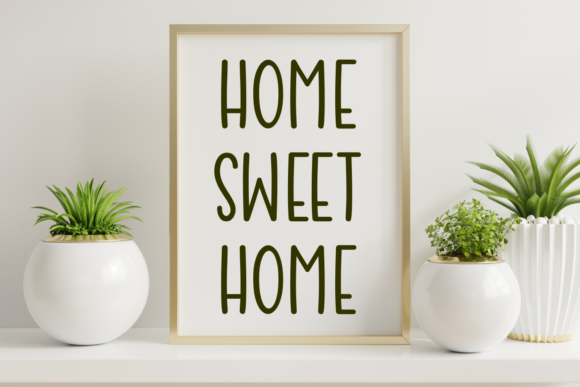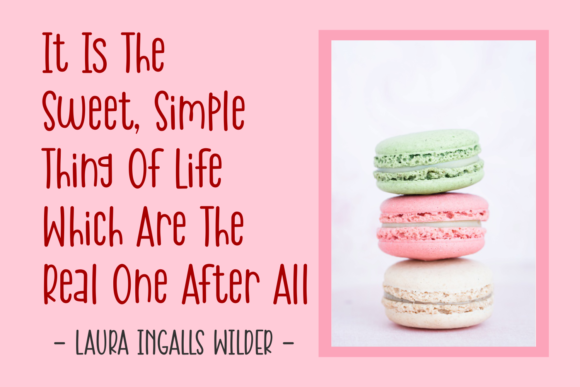
Sweety Macarons Font
db-ku.com - Script & Handwritten -- Sweety Macarons is a joyful and quirky handwritten font. Simple and childish, this font will be a hit among your school project designs, children or even food related creations.